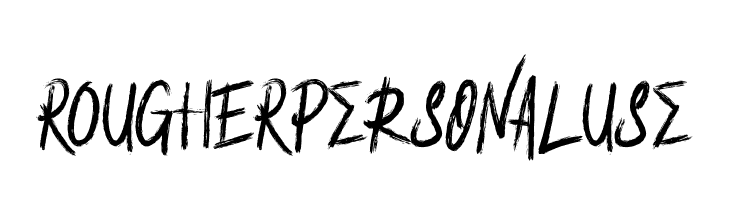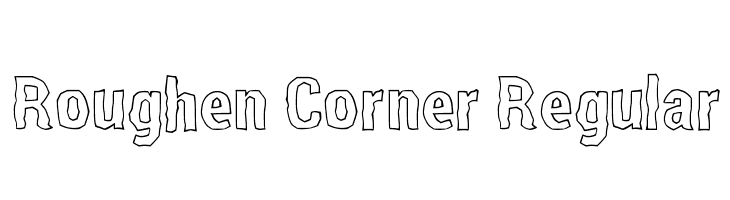
A jagged, energetic font with irregular, zigzag outlines.
Highly detailed, vintage ornamental vignette glyphs.
A rugged, textured font with a chalk-like, distressed appearance.
A rugged, vintage typewriter-style font with a distressed, textured appearance.
A bold, textured typewriter-style font with a vintage, mechanical feel.
A bold, italic typewriter-style font with a rough, textured appearance.
A rough, italic typewriter-style font with a vintage, distressed texture.
A rugged, hand-drawn font with a rough, textured appearance.
A bold, textured font with a hand-drawn, brush-like appearance.